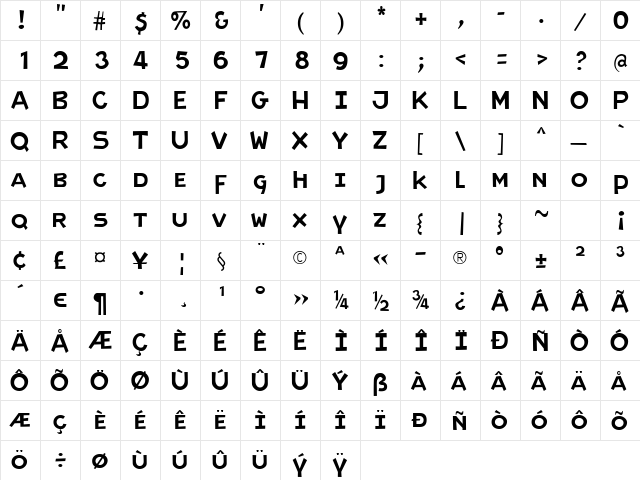
Letrinth Regular
Design Context for Letrinth Typeface
Letrinth takes a measured approach to typography — its balanced proportions and neutral character make it a reliable workhorse for both digital and print work.